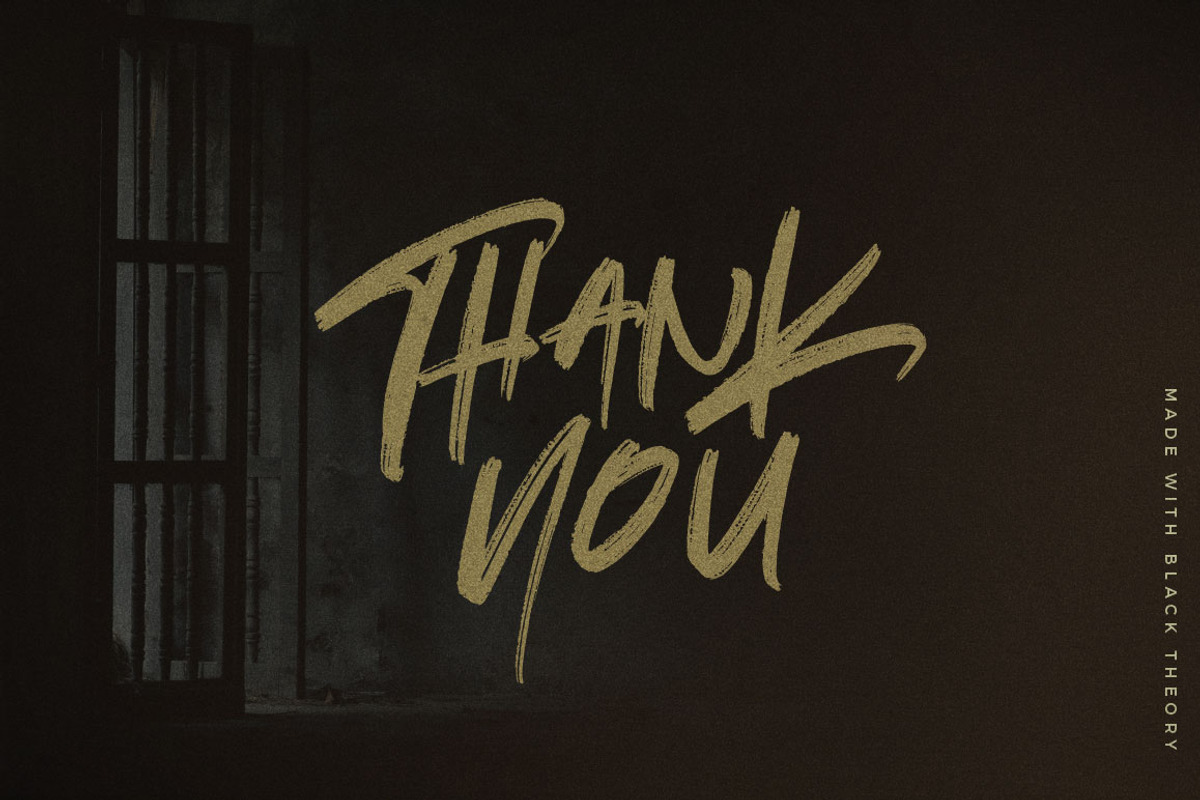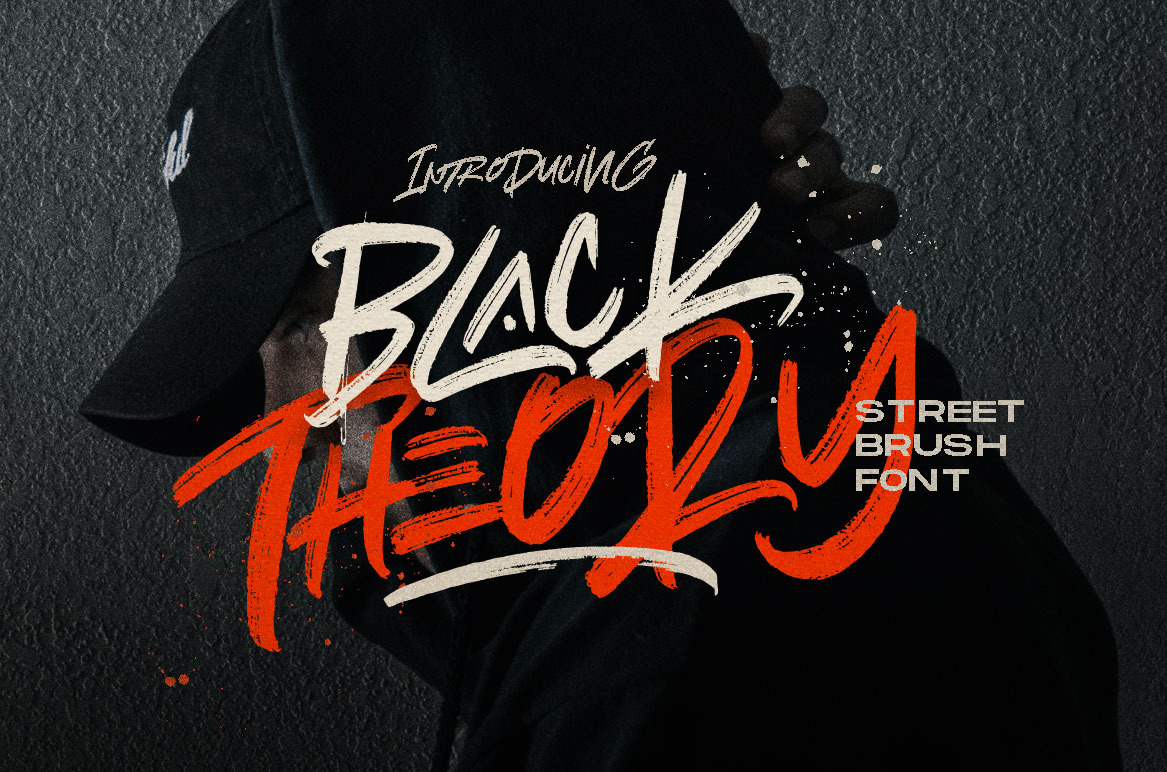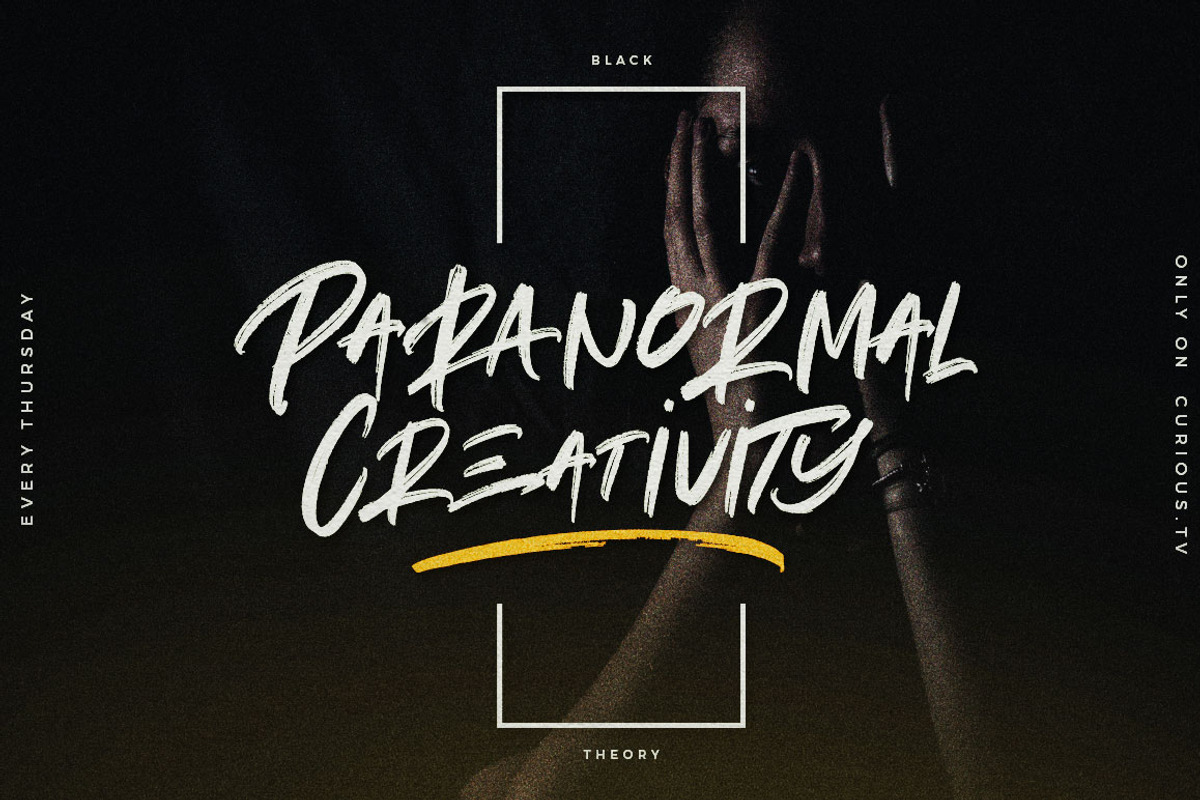
Black Theory - Urban Brush Font
DETAILS Black Theory Brush is Stylist Brush font with a real hand-painted wet brush look. Ideal for signature, logos, handwritten quotes, product packaging, header, poster, merchandise, social media & greeting cards.
- Stylistic Set
- Multilanguage Support